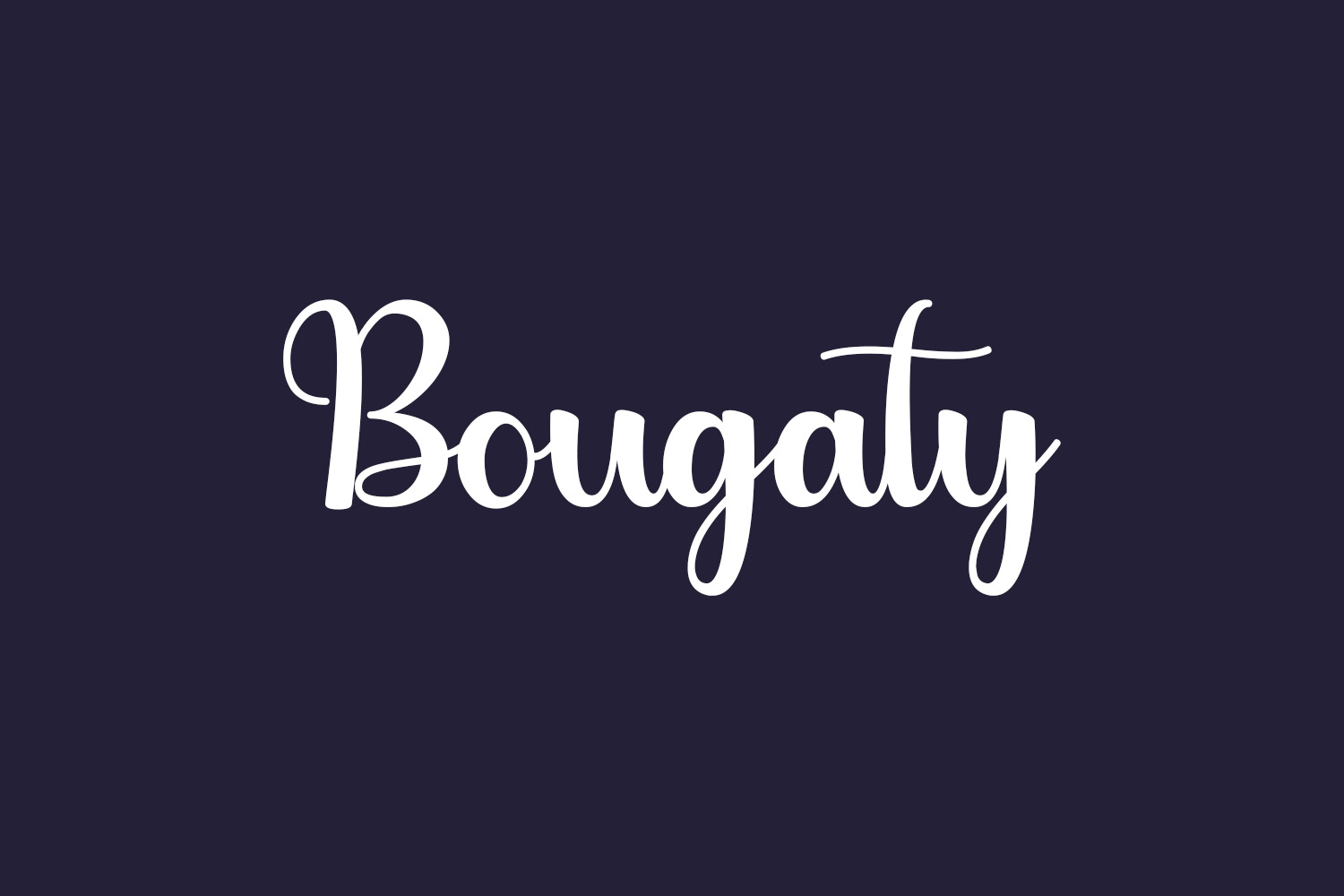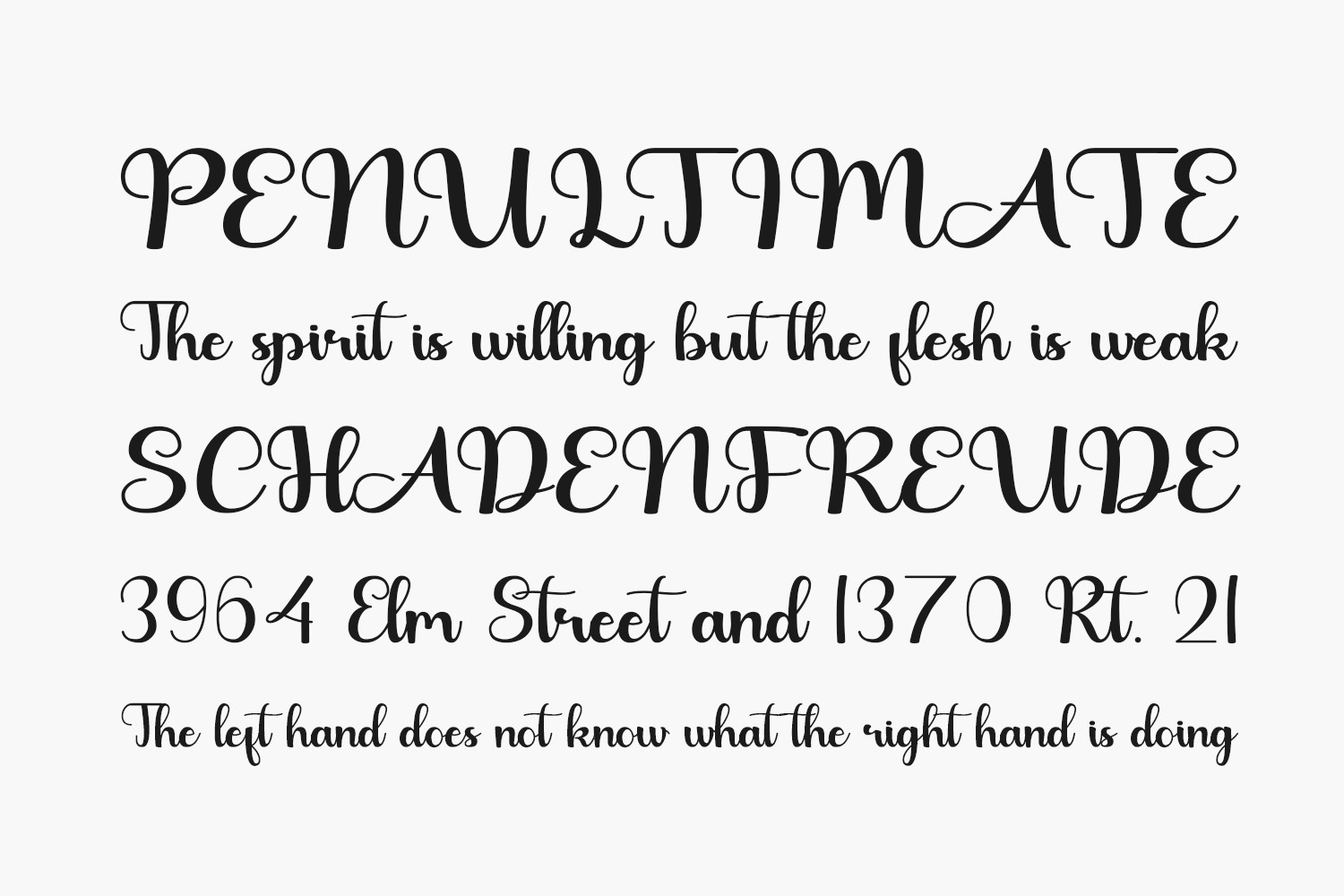
Introducing Bougaty Feee Font, a lively and uncomplicated handwritten font. This typeface exudes contemporary vitality, making it a versatile choice for a multitude of projects and design concepts. Whether you’re pursuing minimalistic or vibrant and modern ideas, Bougaty seamlessly adapts to enhance your vision. Bougaty Free Font is free for personal use only. Please purchase the full version for commercial use.
Designed by Hardiboy Design